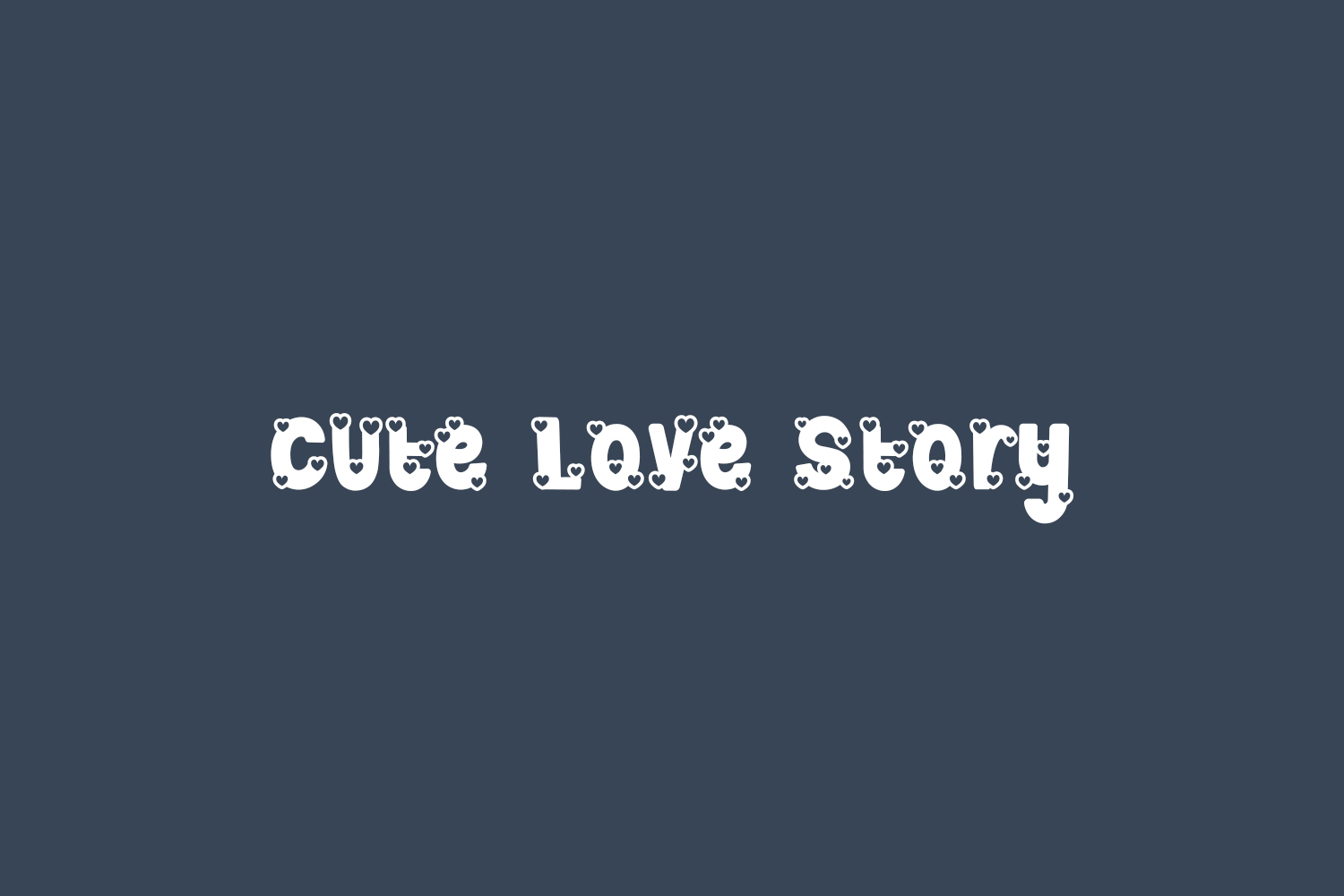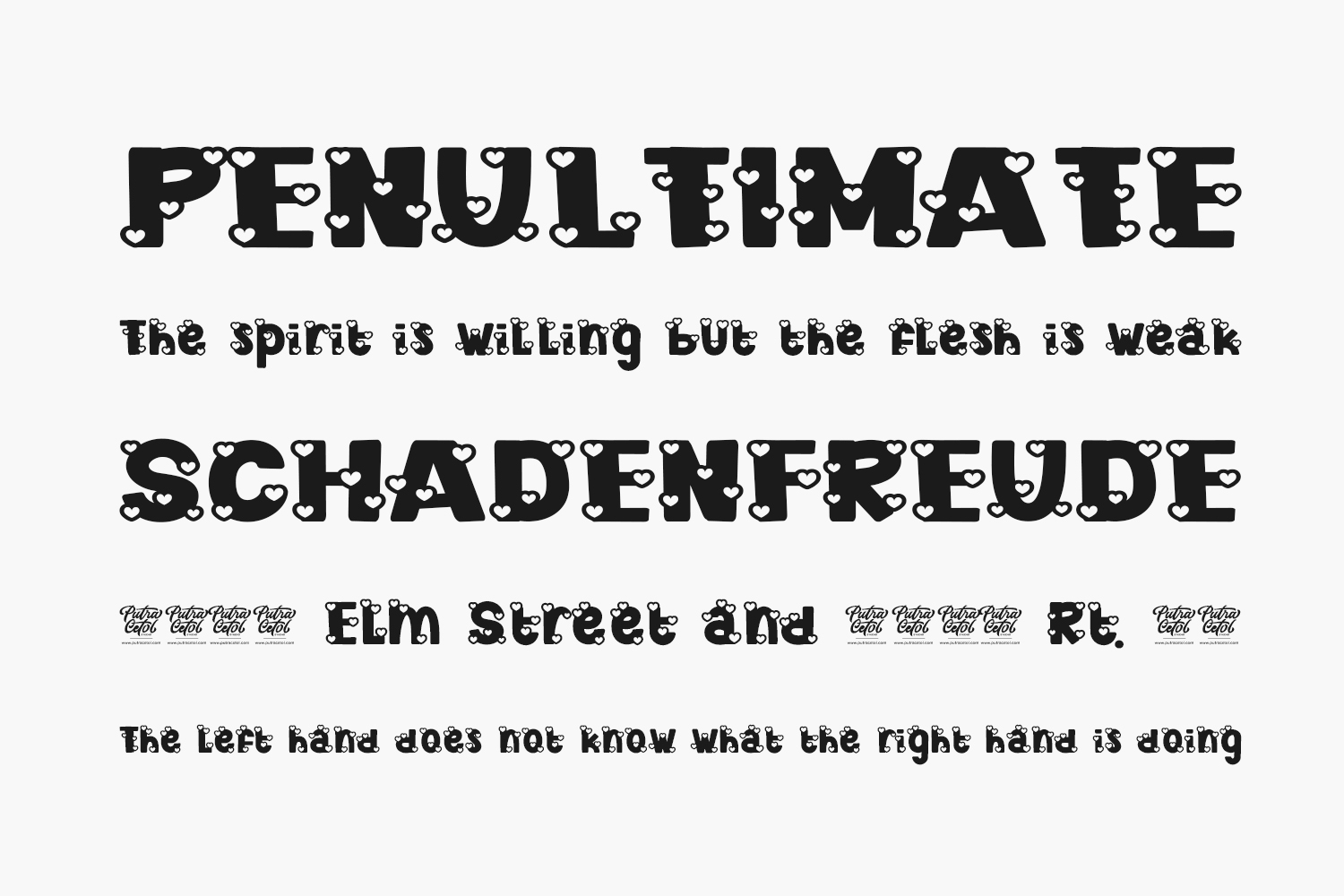
Cute Love Story Free Font is a fun, joyful, and adaptable family font. Whether you use it for cartoon-related designs, children’s games, or just any creation that requires a lovely touch, this font will be an amazing choice. Cute Love Story Free Font was designed by PutraCetol Studio is a demo and free for personal use only. Please purchase the full version for commercial use.